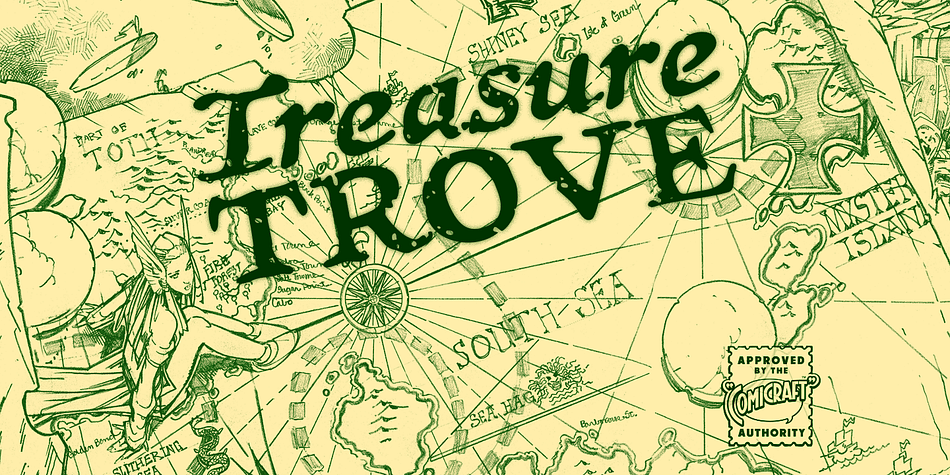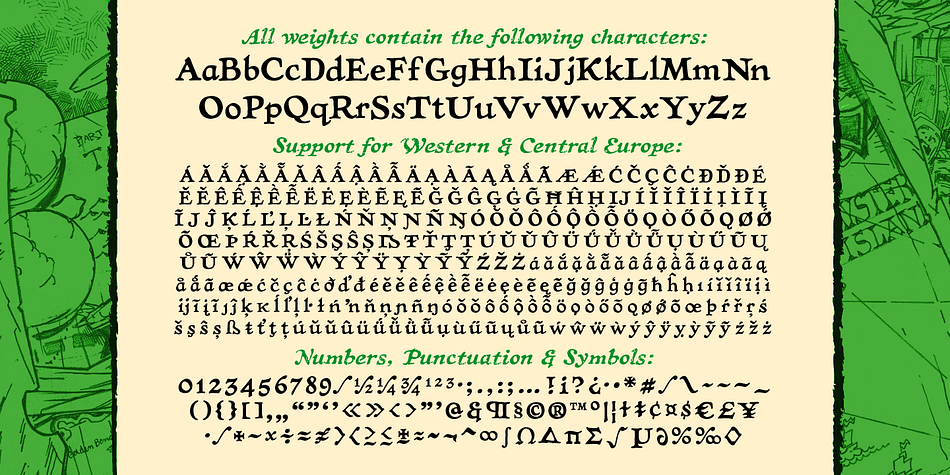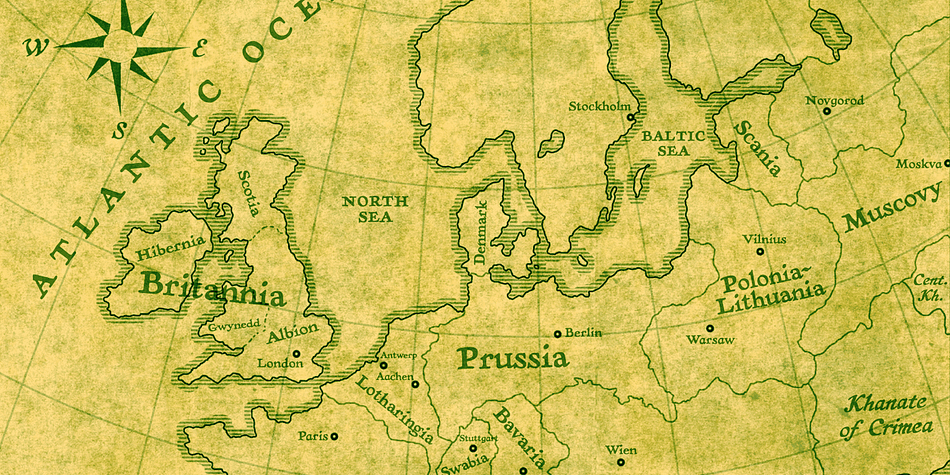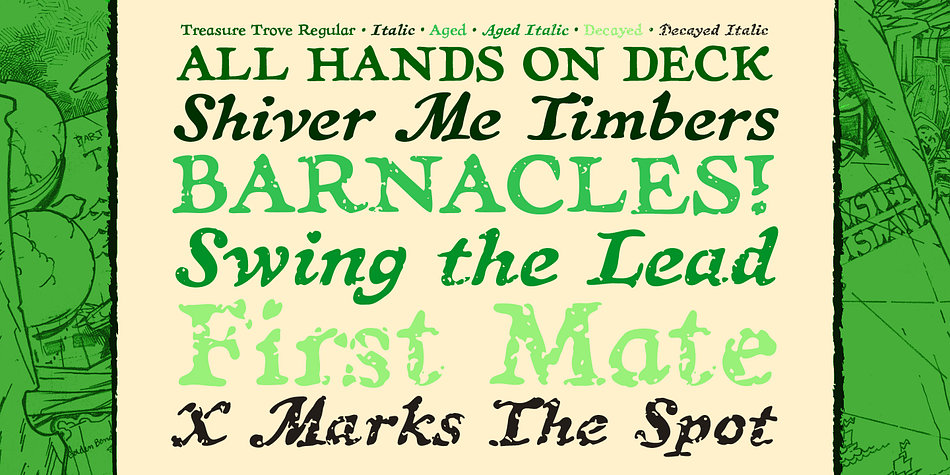
Designed by John Roshell, Treasure Trove is a display serif font family. This typeface has six styles and was published by Comicraft.
X’ marks the spot—and the height of the lower case letters—in this cartographic calligraphy mapped out for you by lettering landlubber Jolly ‘JG’ Roshell and his trusty crowquill. Mapquest “Mystery Island” and be sure to keep your eyes on those scurvy dogs that call themselves your crew, this font is spilling over with dubloons and pirate booty and it’s finders keepers!